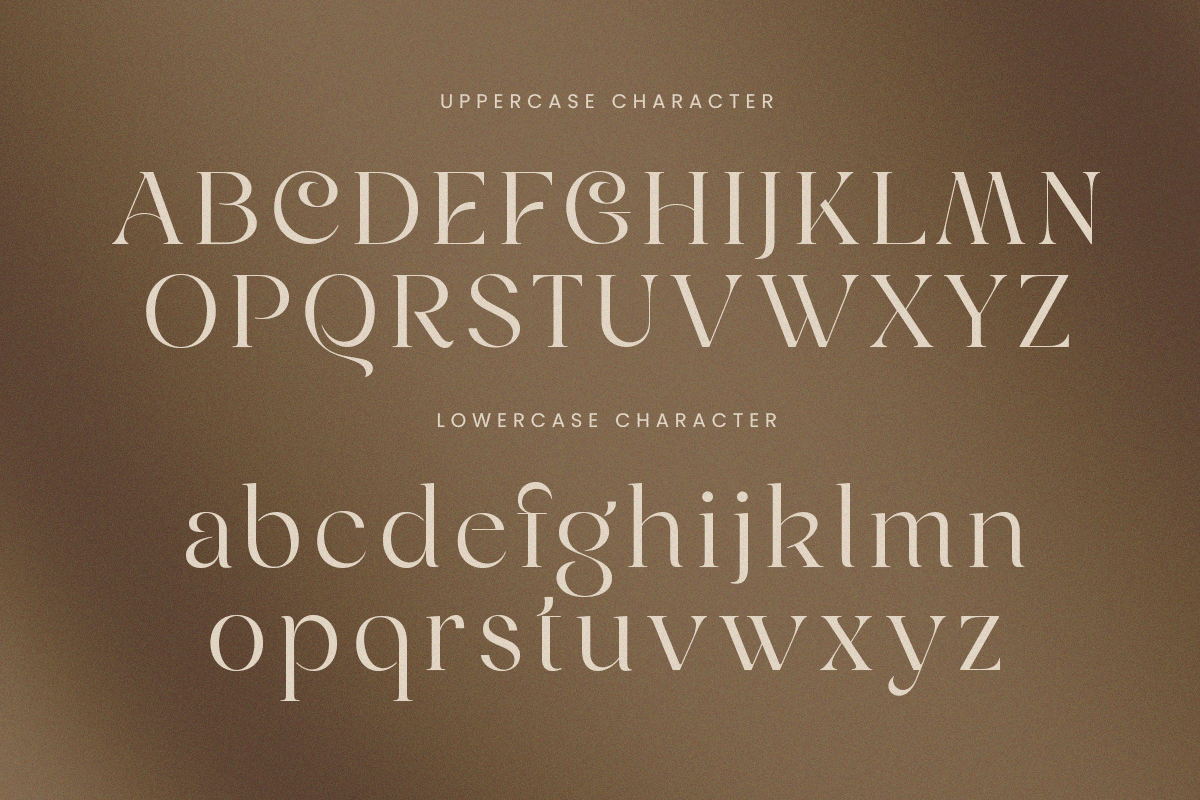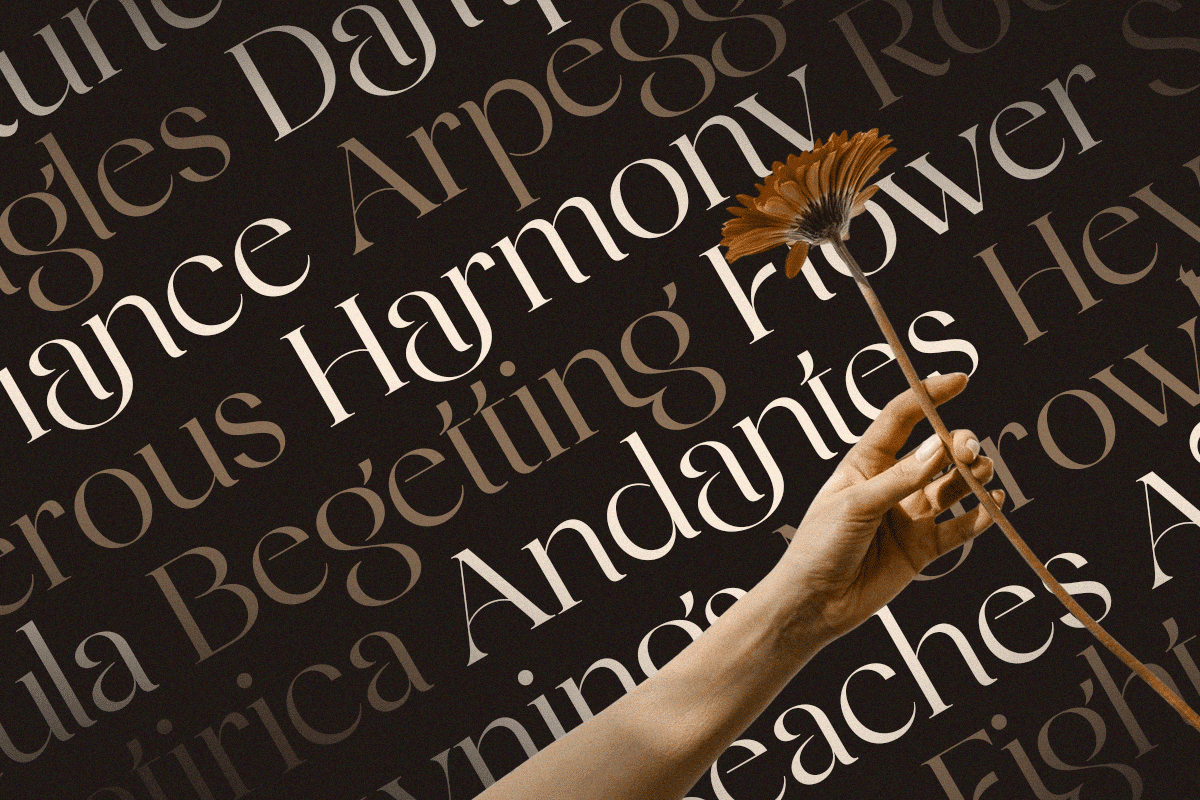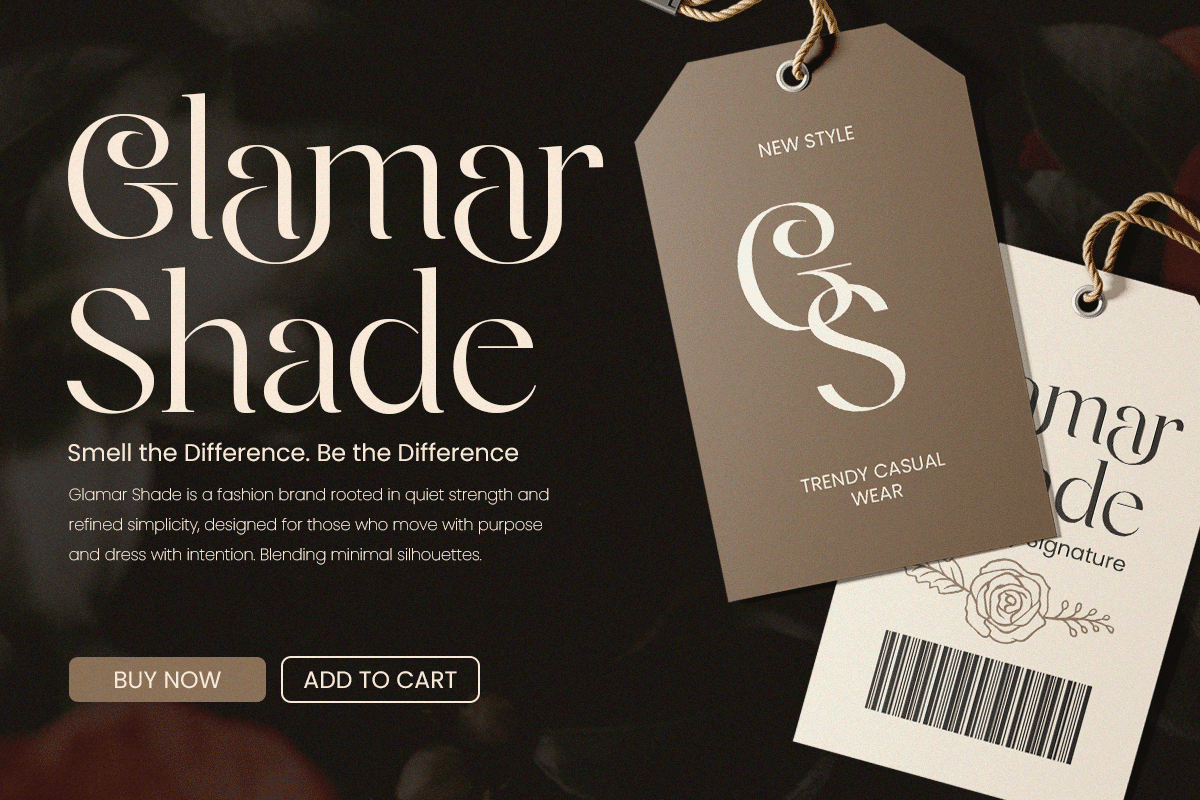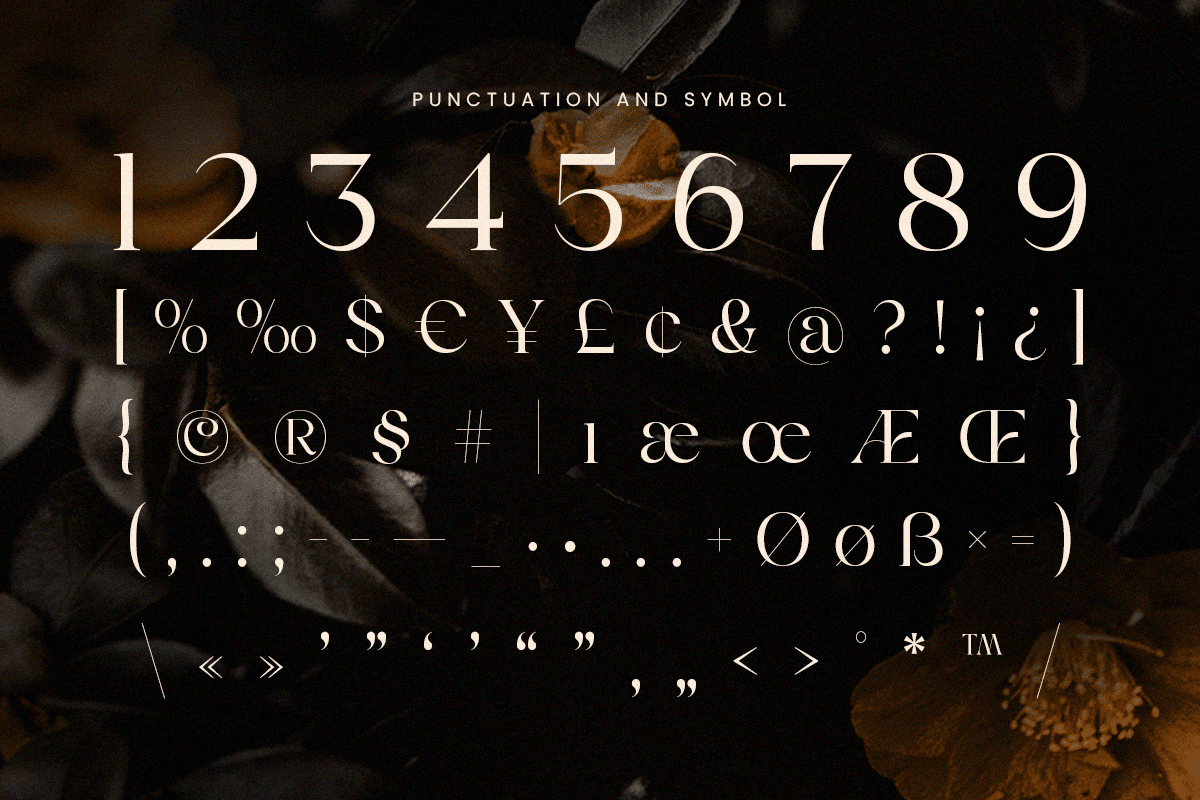
Fashion Brand Font – Magenta
Magenta is an elegant fashion brand font crafted for premium logos, editorials, and high-end branding projects. With refined curves and timeless sophistication, itβs ideal for fashion labels, luxury packaging, magazines, and lifestyle branding.
Its graceful serif design blends elegance with modernity, making Magenta a perfect choice for designers who want to convey beauty, confidence, and exclusivity in every detail.
Magenta β Elegant Fashion Brand Font Features
- Elegant and refined serif character set
- Perfect for fashion, editorial, and luxury branding
- OpenType features for extra versatility